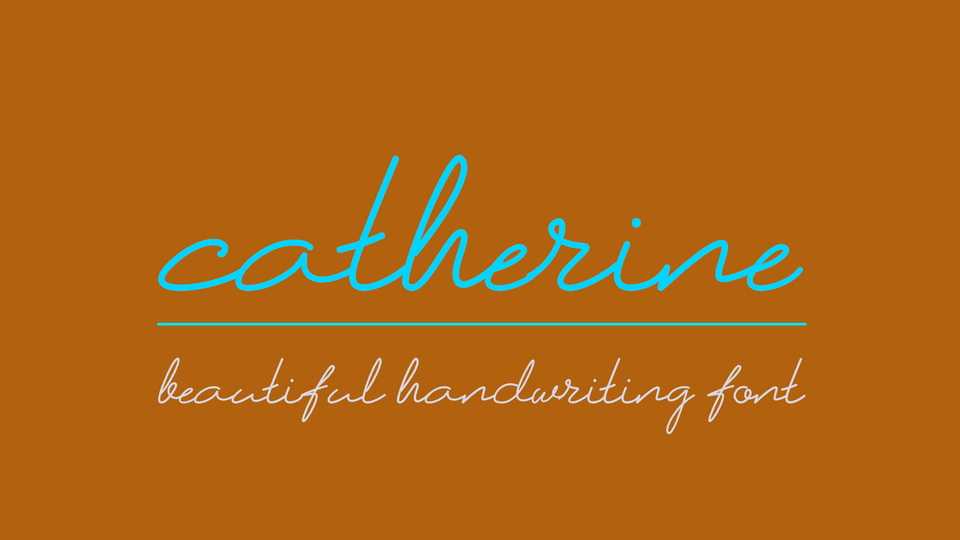
Download Catherine font, a lovely handwritten typeface, created especially to accompany ear-end holidays. Catherine font was created with care and diligence, and it is perfect for projects that require a personal feel.